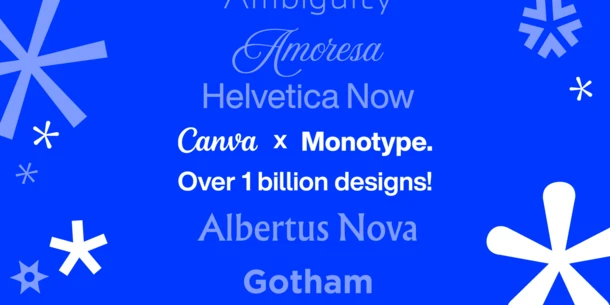
Monotype and Canva Celebrate Over 1 Billion Designs Created Using Monotype Library
WOBURN, Mass., March 27th, 2025 — Monotype Imaging Inc., a global leader in type design and technology, and Canva, the all-in-one visual communication platform, are celebrating over 1 billion designs created using fonts from Monotype and its foundry partners. This achievement highlights the significance of Monotype and Canva’s partnership, announced in 2023, and the power of typography to enhance design and spark creativity.
The collaboration enables millions of designers and non-designers alike to create stunning visual content using more than 1,800 curated typefaces from the Monotype library from Monotype and foundry partners from around the globe. Font software available on the platform from the Monotype library includes classic font families like Sabon® and Helvetica® and new standards like Gotham® and Recoleta.
“We’re incredibly proud of this milestone,” said Charles Nix, Senior Executive Creative Director at Monotype. “Over one billion designs created is proof positive that quality typefaces are integral to the Canva users’ creative processes. The Canva x Monotype collaboration underscores the importance of quality fonts in achieving design excellence.”
Silvia Oviedo, SVP and Head of Content and Discovery at Canva shared: “Partnering with Monotype has opened up the world’s most iconic typefaces to our community of professionals and creators, helping them elevate their work to new heights. This milestone shows just how powerful the combination of premium typography and accessible design can be. We can’t wait to see more amazing work come from our shared community of creators.”
Monotype’s partner foundries are equally delighted with the Canva partnership.
“Seeing my fonts in Canva’s library gets me fired up, and here’s why: They’re blazing a different trail for how people discover and work with fonts. Canva’s cracking open the door for the next generation of designers to work with professional fonts from day one. As typeface designers, we want our fonts to get used, and this is breaking down traditional barriers between my fonts and new designers,” said Raymond Larabie, Founder of Typodermic Fonts.
“It’s an exciting moment when some of the best type designers collaborate with the best online design platform. Something incredible is bound to happen. We are delighted that our fonts are available on the Canva platform, giving Canva users the opportunity to take their projects to the next level,” Luciano Vergara, Co-Founder of Latinotype.
“Joining Canva’s platform with Loew Next Arabic™ has opened exciting opportunities for our typeface to reach a global audience. Canva’s easy-to-use design tools allow users worldwide access, which can play a vital role in creating designs that communicate across cultures and languages. This collaboration aligns perfectly with our mission to deliver accessible, high-quality multi-script typefaces that enhance creativity and inclusivity,” said Jonathan Hill, Founder of The Northern Block.
Last May, Canva announced the launch of its Canva Enterprise offering, making it easier for large global teams that span human resources, sales, marketing, and creative teams to solve design challenges seamlessly. Premium typography helps to enable this effort, allowing brands to express their visual identities consistently across channels and to communicate with customers in a myriad of languages.
Highlights of the Canva x Monotype Collaboration
- Over 1 billion designs: Since the partnership began, Canva users have utilized fonts from the Monotype library in creating over one billion designs.
- Popular fonts: Amoresa, Biro Script Plus, and Sugar Pie have been top choices among the most recent additions to the platform, reflecting the immediacy and approachability of scripts and handmade letters.
- Global reach: Canva’s top 5 performing markets for Monotype library fonts are the US, Brazil, the Philippines, Indonesia, and India.
- Enterprise access: Increasingly, Monotype and Canva are enabling access for brands to leverage new typography within the platform.
- Type curriculum: Classes on Canva’s Education Platform provide resources including lecture topics, in-class discussions, and activities geared toward engaging students around design.
Elevating Design for the Future
As Monotype and Canva celebrate two years of partnership, it is clear there is much more for the teams to build together.
Since the partnership was announced at Canva Create in Sydney in 2023, more than 1,800 fonts covering hundreds of languages and scripts have been added to the platform. Joint events have proved enormously popular in regions around the world, and the companies plan to continue collaborative initiatives to bring value to design audiences.